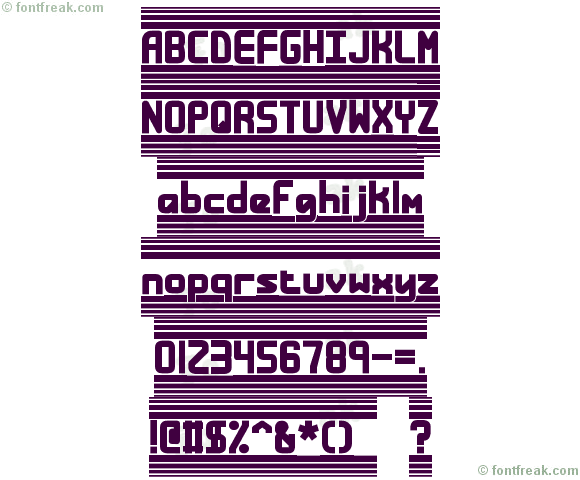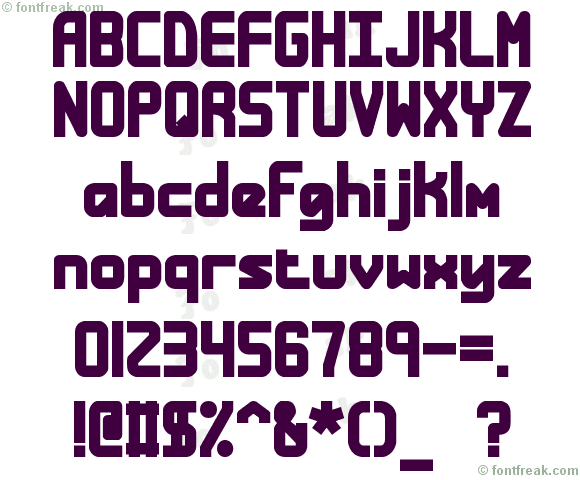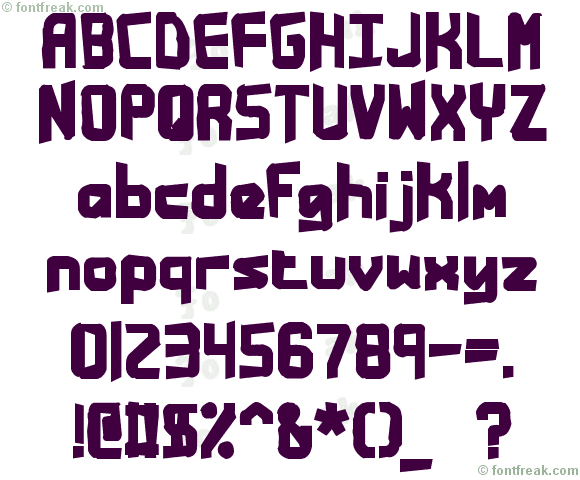
Bandwidth Bandless BRK
Bandwidth BRK
Bandwidth Bandmess BRK
Bandwidth by Ænigma Fonts is a unique display font that captures attention with its bold and linear aesthetic. This sans-serif typeface features a distinctive visual style characterized by its consistent stroke weight and minimal contrast, creating a clean and modern appearance. The font's design incorporates band-like elements that add a rhythmic quality to the text, making it suitable for various creative projects. The spacing between letters is thoughtfully arranged, enhancing readability while maintaining an engaging visual flow.
This font is particularly well-suited for a variety of applications. It shines in digital marketing materials, such as website headers and promotional banners, where a striking visual presence is essential. Bandwidth also works wonderfully for modern branding projects, including logos and business cards that aim to convey innovation and forward-thinking. Additionally, it can elevate print materials like event flyers and music album covers, where a contemporary yet approachable vibe is desired. Graphic designers, small business owners, and content creators will find this font especially useful, as it offers versatility across multiple mediums.
What sets the Bandwidth font apart is its ability to blend modernity with simplicity. The clean lines and bold structure make it not only visually appealing but also functional for various design needs. Whether you're crafting a sleek website or designing an eye-catching poster, Bandwidth ensures that your message stands out. With its unique character and free availability, those looking for a standout typeface should consider the Bandwidth font free download for their next creative endeavor. Embrace the rhythm and style of Bandwidth to elevate your designs and captivate your audience.